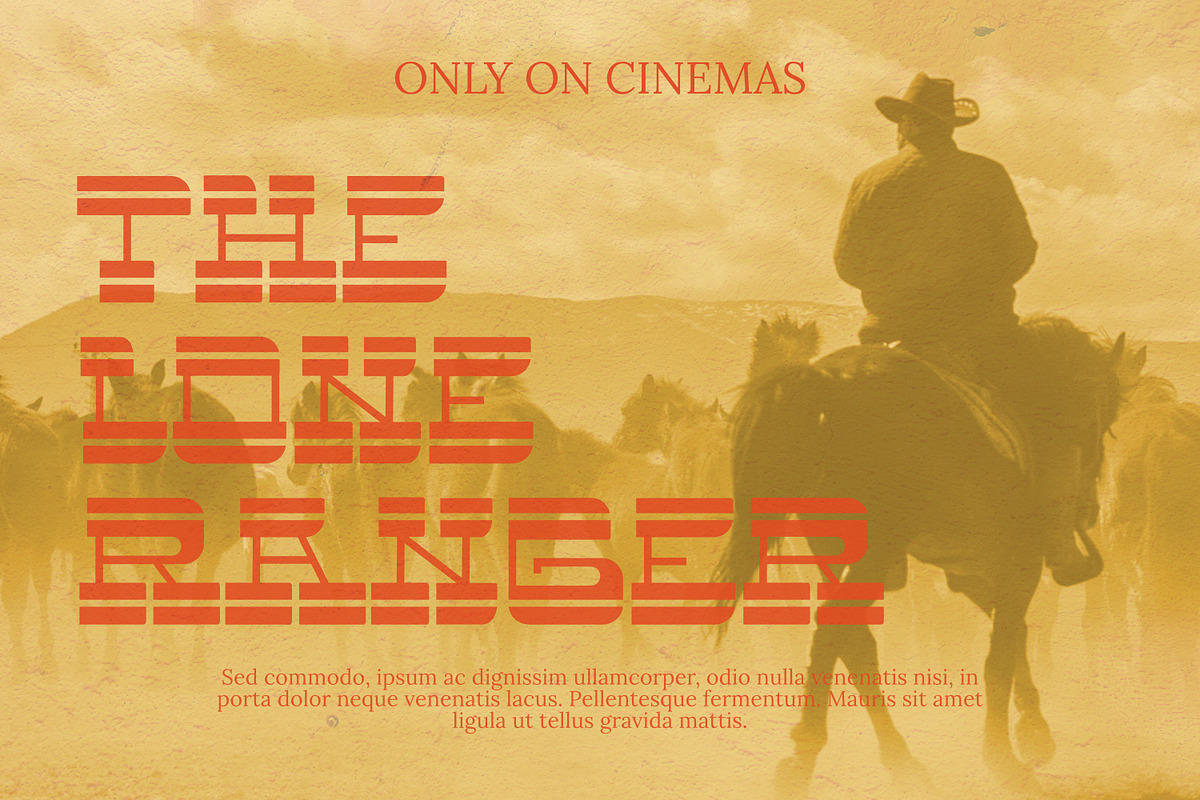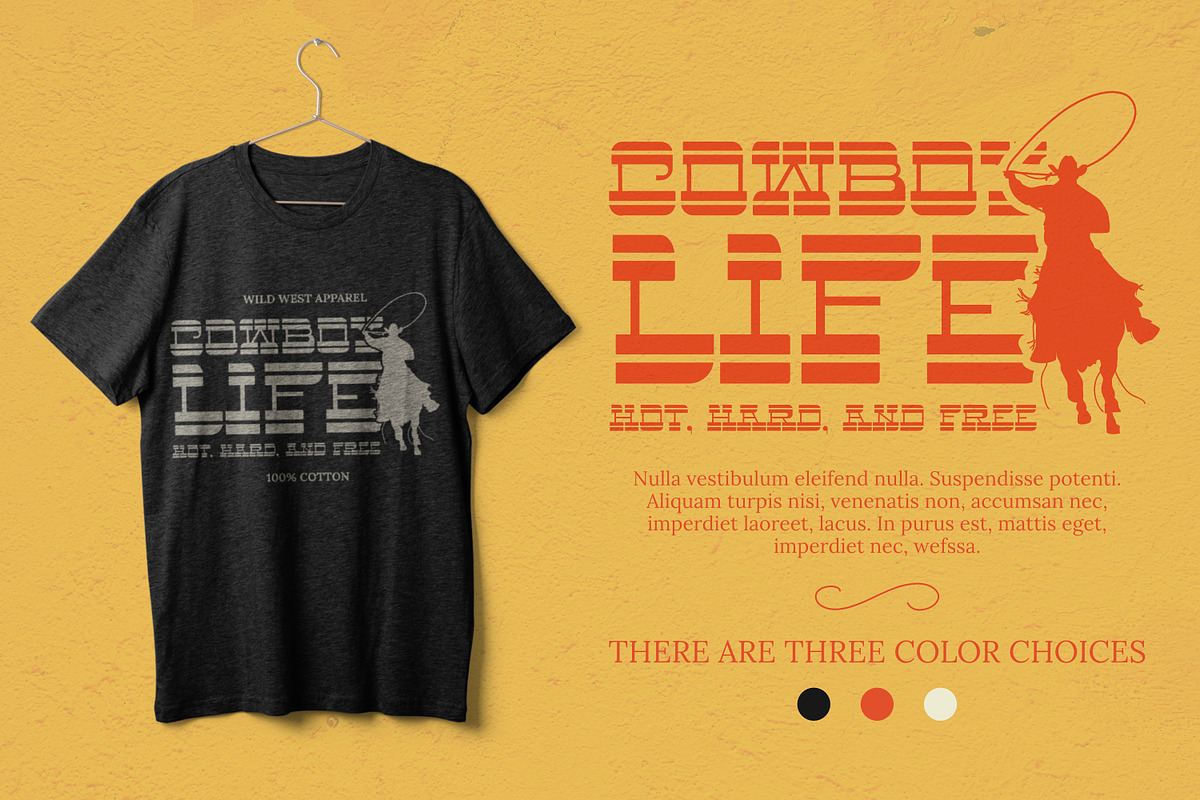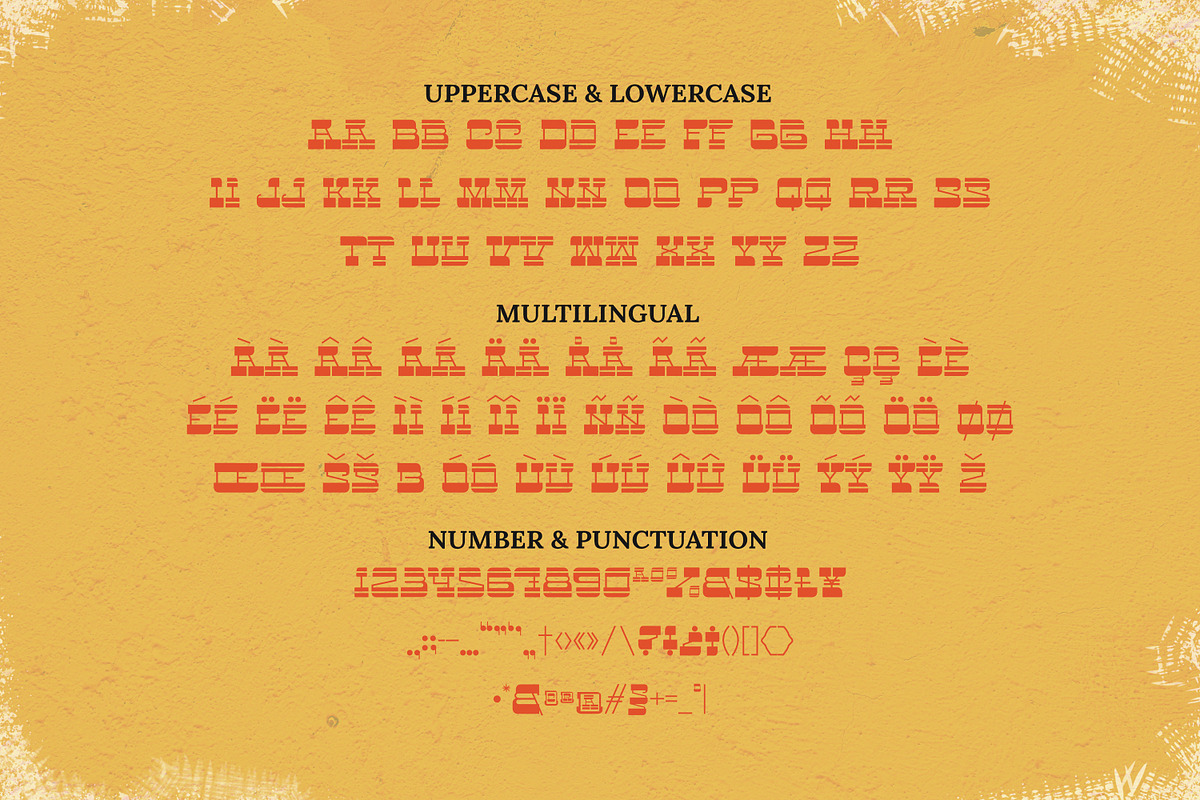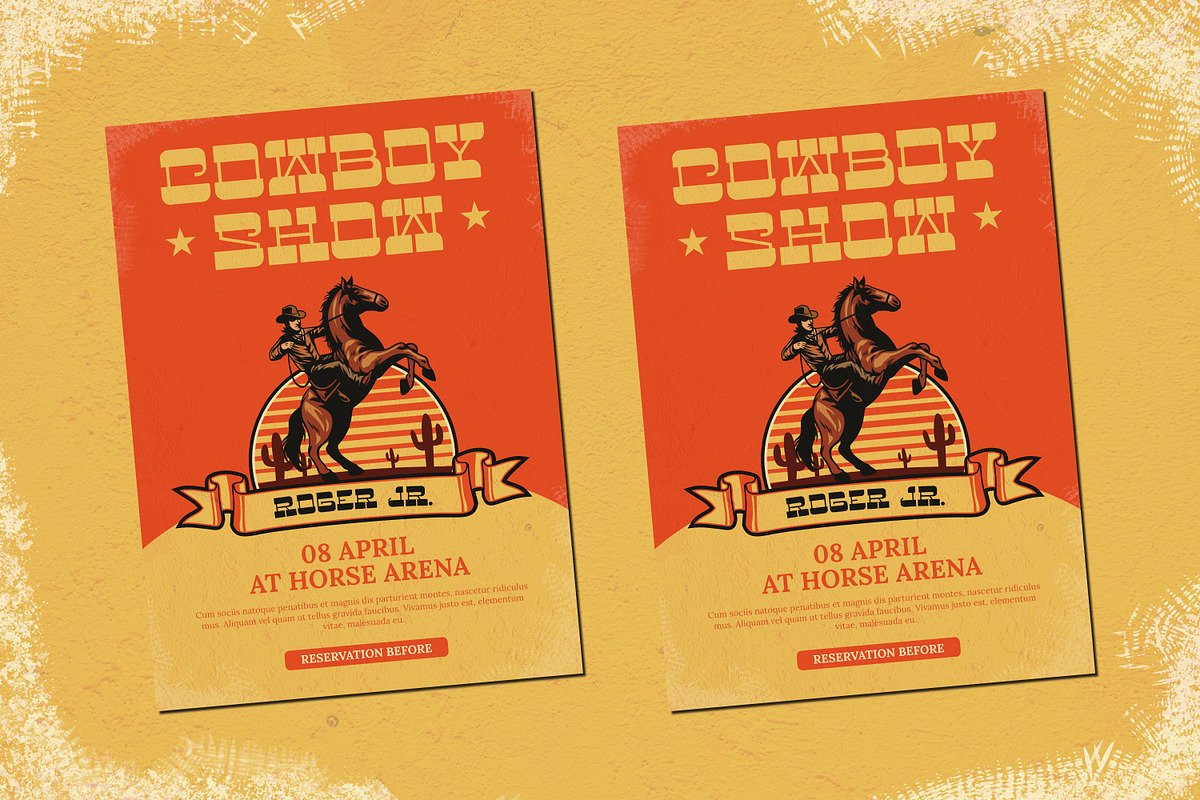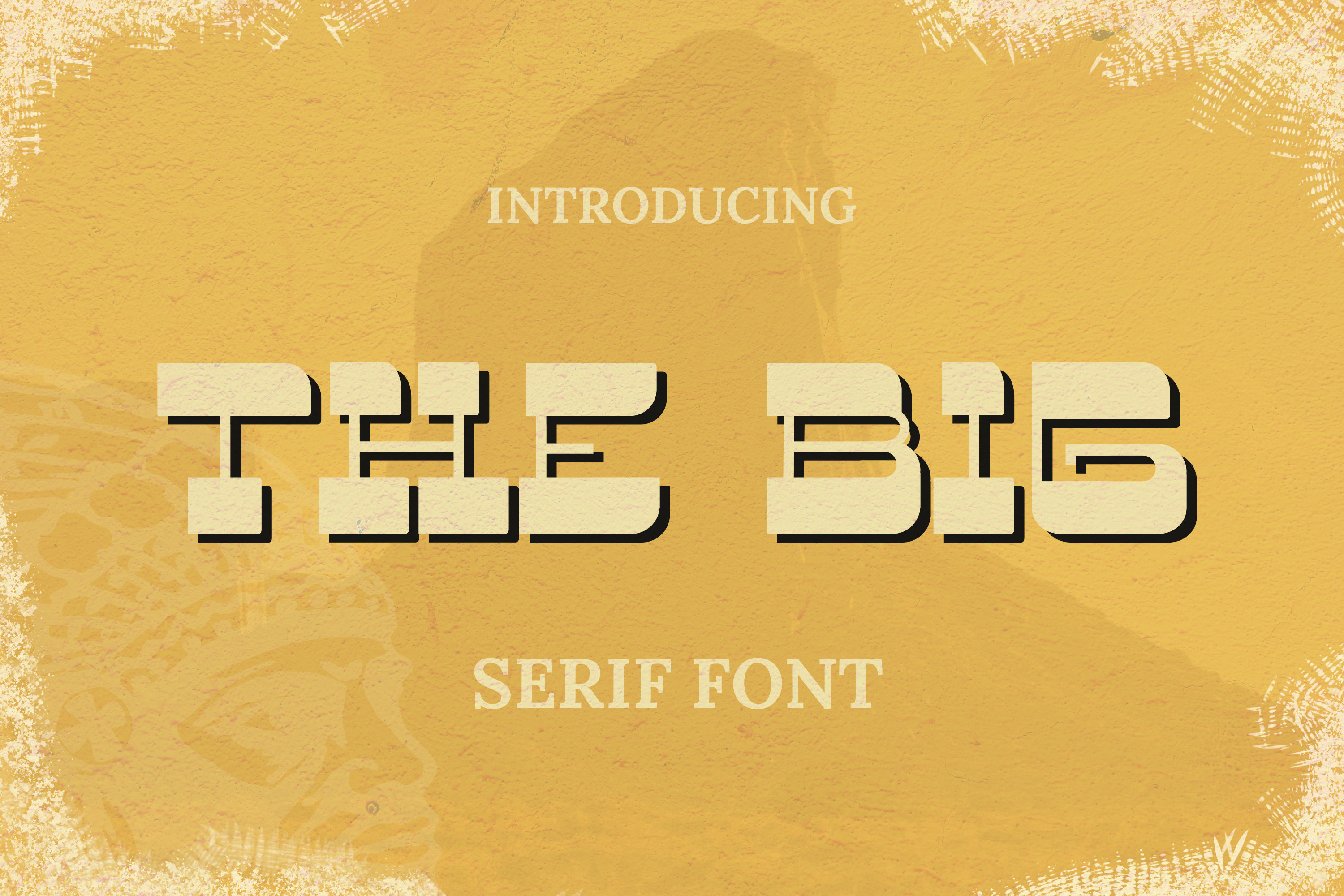
The Big - Serif Display Font
Introducing “The Big” - A serif display font with multilingual support. Unique & western style serif display font for your new cool projects. Great for retro/vintage projects! It's perfect for monograms, logos, prints, posters, and more!